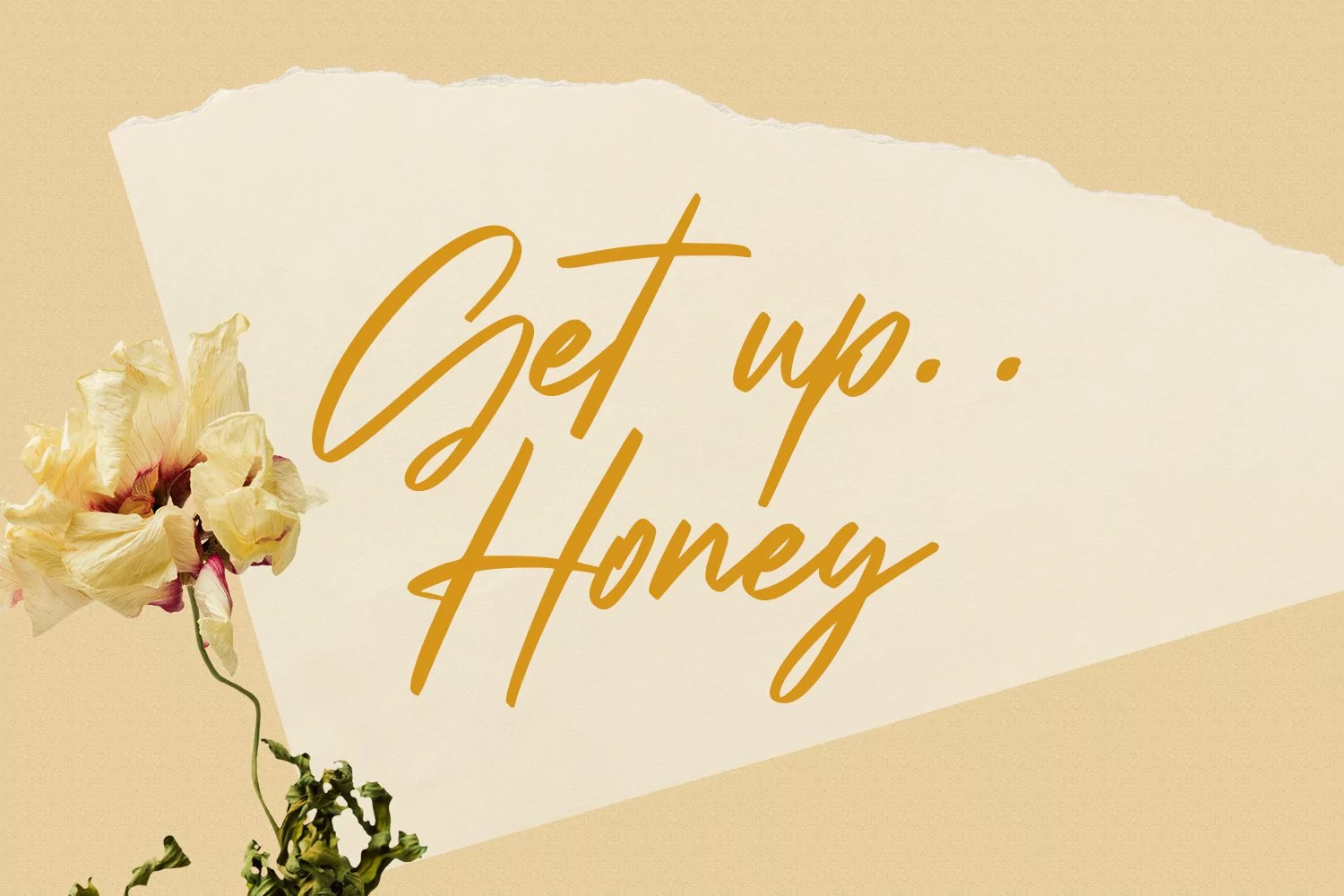
Pattyfest is a casual signature script font. With Regular felt tip stroke, fun character with a bit of ligatures and has a two files lowercase alternates. To give you an extra creative work. Pattyfest font support multilingual more than 100+ language. This font is good for logo design, Social media, Movie Titles, Books Titles, a short text even a long text letter and good for your secondary text font with sans or serif. Make a stunning work with Pattyfest font.